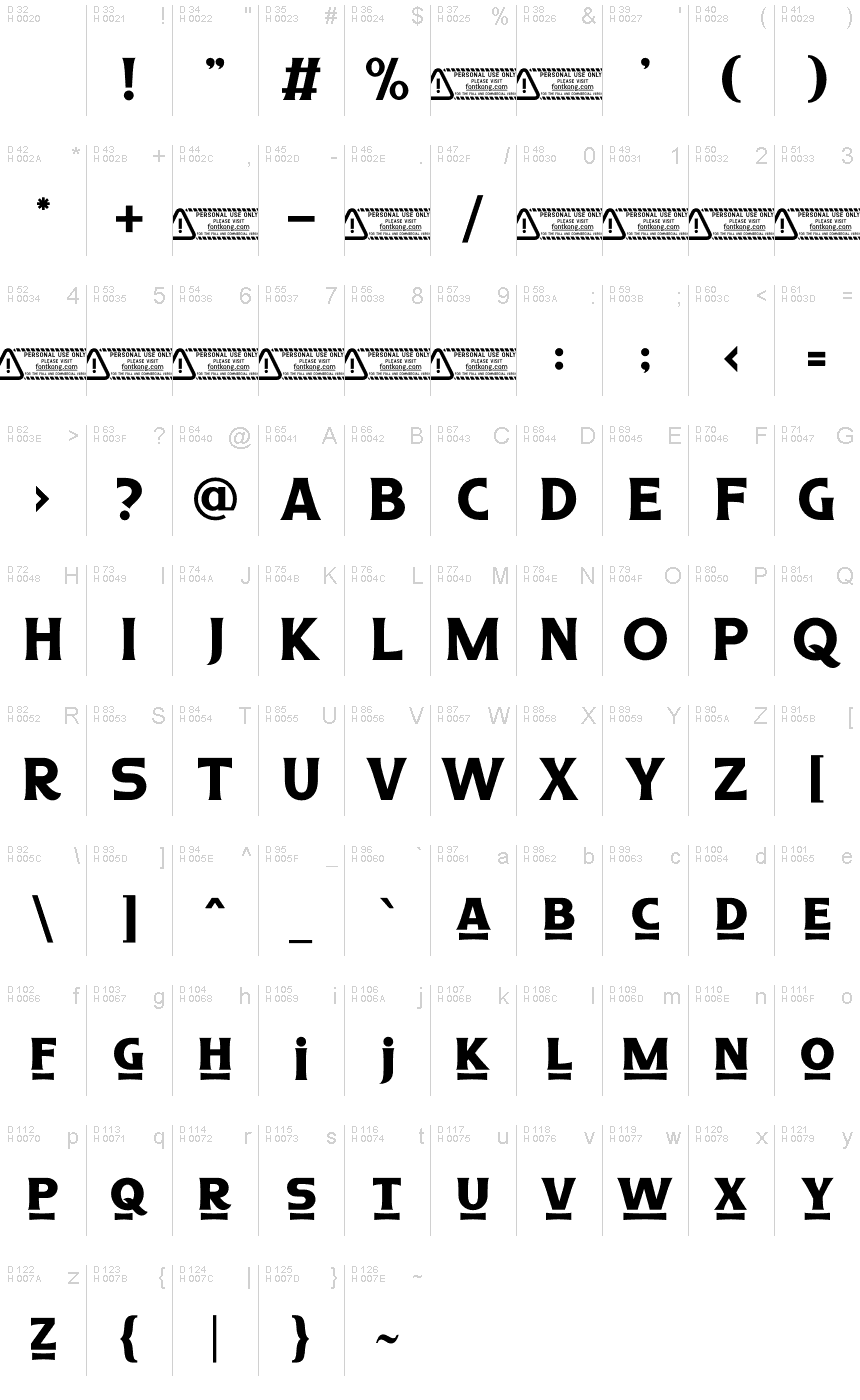
Norus
Norus, crafted by Kong Font, is a captivating and elegant serif font that exudes timeless sophistication. Its bold weight commands attention and evokes a sense of confidence.
With its refined strokes and graceful curves, Norus lends itself beautifully to luxurious branding projects, such as high-end fashion labels or exclusive jewelry lines. This exquisite typeface also adds a touch of refinement to editorial designs, making it the perfect choice for magazine spreads or book covers in need of an air of sophistication.
Let Norus elevate your next design endeavor to new levels of elegance and style.